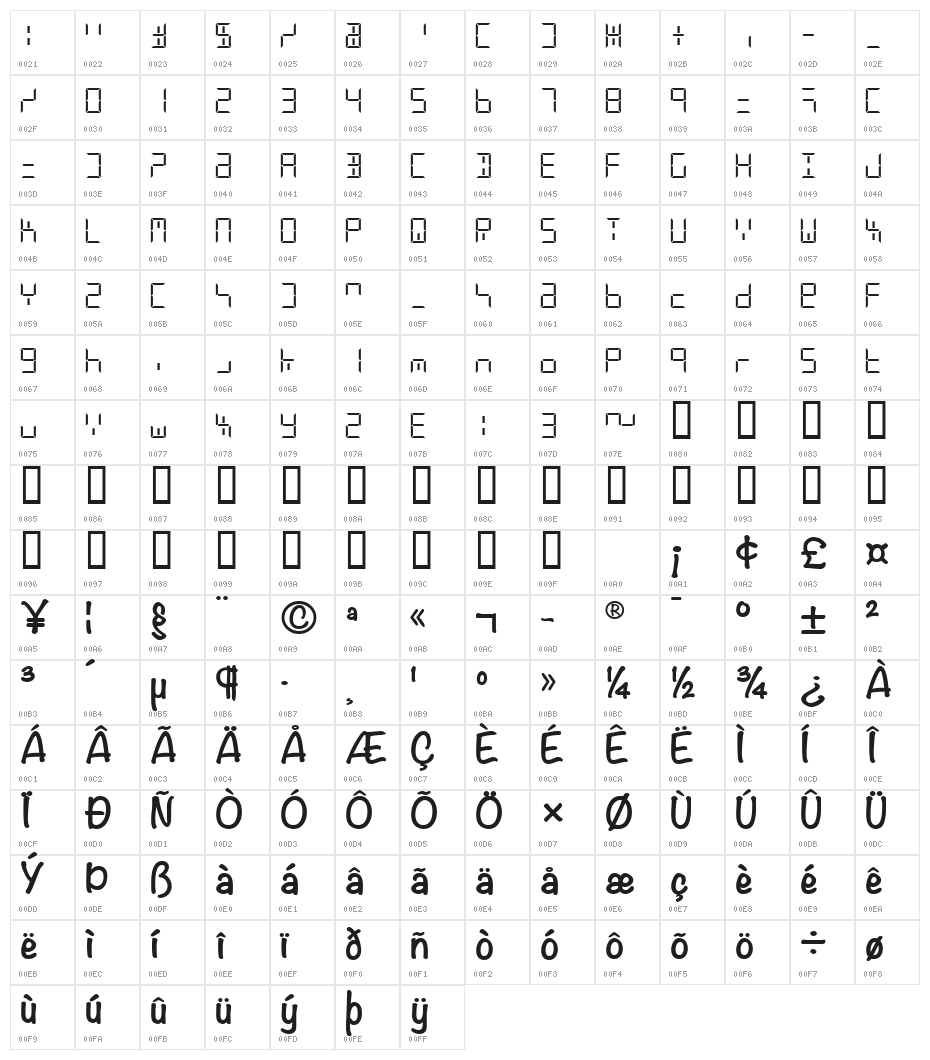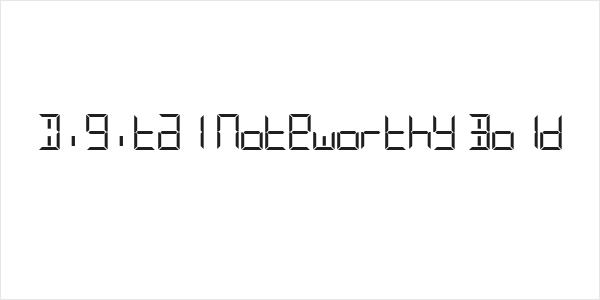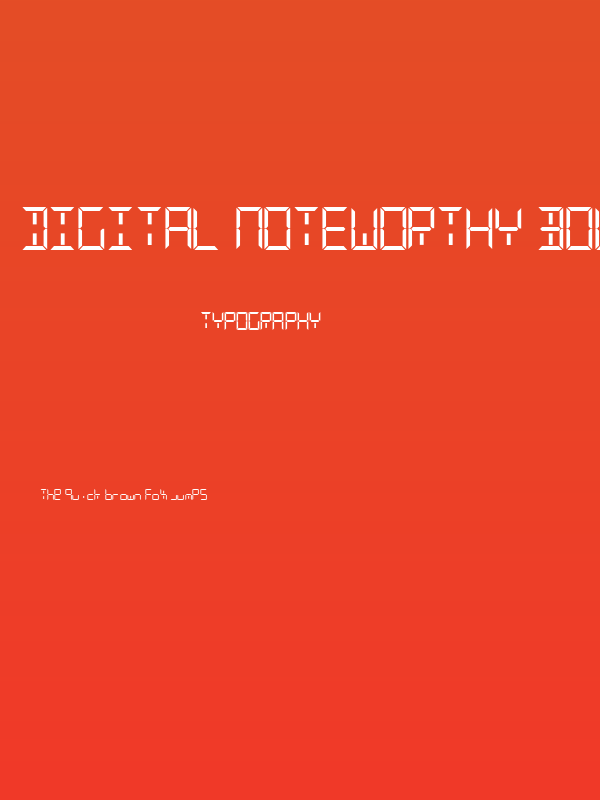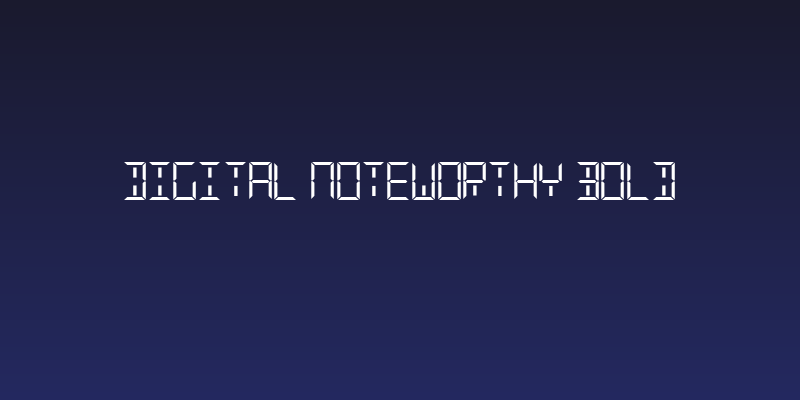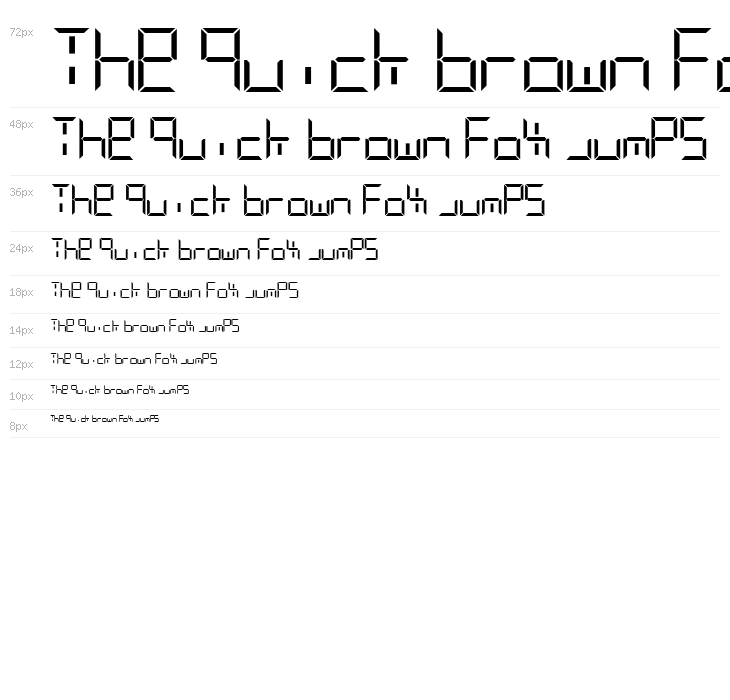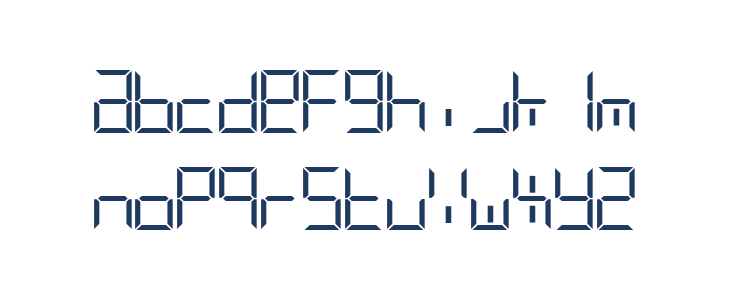
Digital Noteworthy Bold Font
Digital Noteworthy Bold Description
This font features a digital, segmented style reminiscent of classic digital clocks and displays. Each character is constructed from a series of straight lines and angles, creating a geometric and technical appearance. The uppercase and lowercase letters, as well as numbers, are designed with a consistent segmented pattern, giving the font a cohesive and uniform look. The special characters maintain this digital aesthetic, ensuring the font is versatile for various applications. Its bold weight enhances visibility and impact, making it suitable for attention-grabbing designs.
| Use Case | Headlines, Logos, Digital Displays |
| Proposed Projects | This font is perfect for digital interfaces, tech-themed posters, electronic device displays, and futuristic branding projects. |